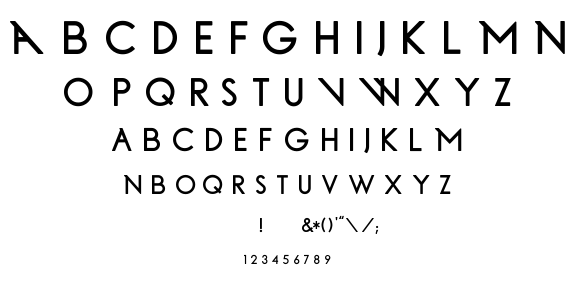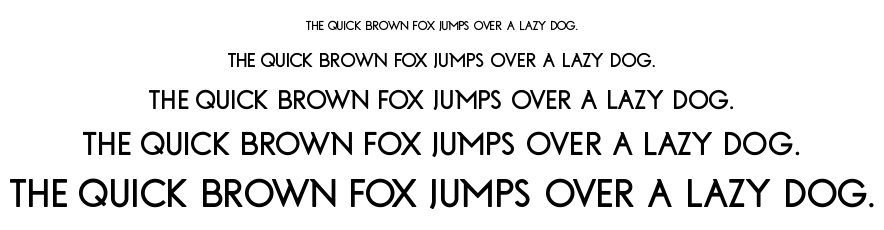
This is the second font style from my free font family “No Fancy Name”. The styles Regular is also available. Its a a modern headline font based on the No Fancy Name Logo who inspired by Fonts of the 1920 and 1970.